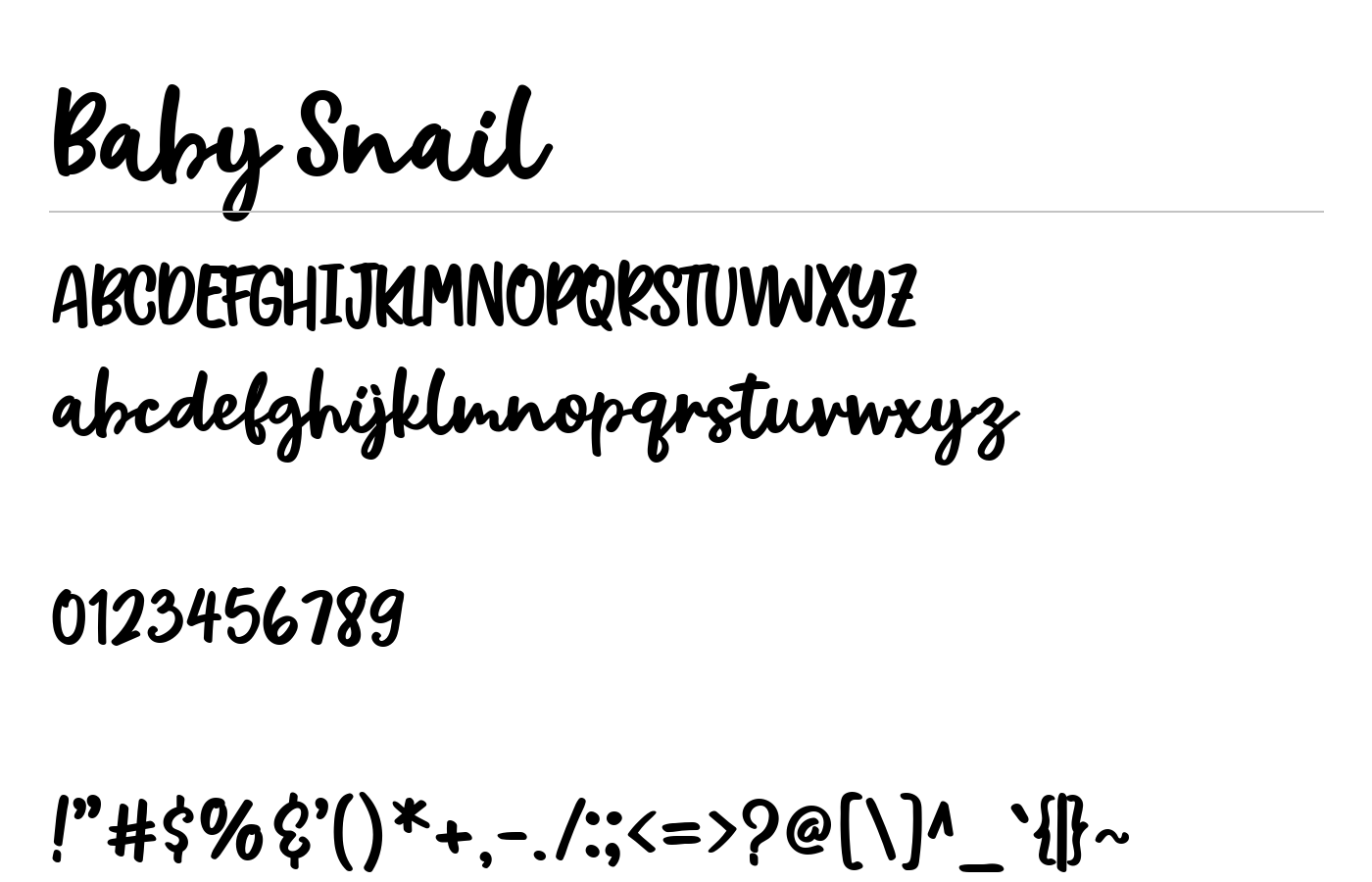
Baby Snail is a playful and casual handwritten font with a bold yet friendly appearance. Its smooth, rounded strokes and moderate x-height make it approachable and easy to read, perfect for inviting and informal designs. This font works great for creative projects like children’s books, playful branding, and social media graphics where a fun, personal touch is desired.
Baby Snail Font
About Baby Snail Font